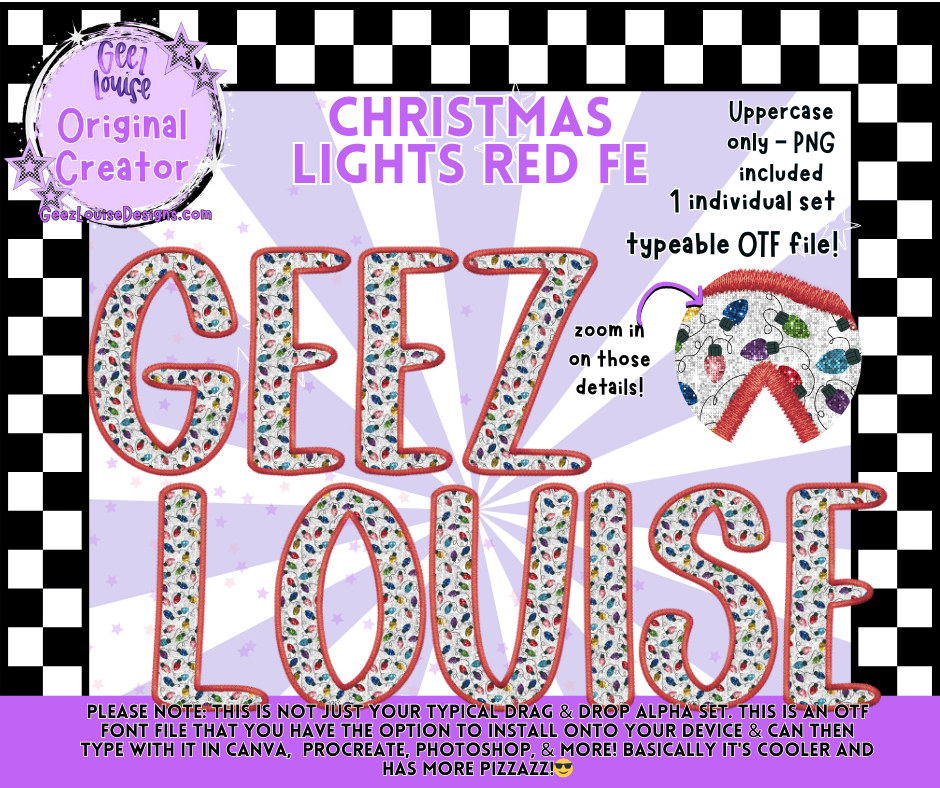
Christmas Lights Red Faux Embroidery Alpha Font | OTF & PNG Letters
🎅 Brighten your holiday projects with the Christmas Lights Red Faux Embroidery Alpha Font! 🎅
This festive alpha set features colorful Christmas lights with a stitched red faux embroidery trim. Perfect for creating holiday designs that shine with seasonal spirit.
Detailed Christmas light accents that pop with color.
Faux embroidery edges for a cozy, stitched effect.